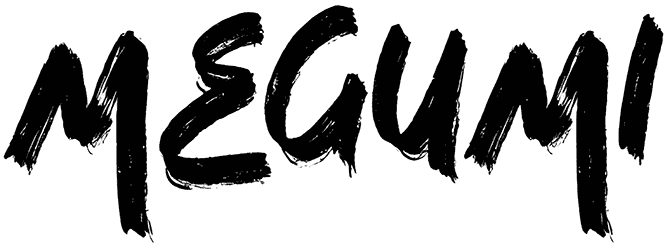
Megumi Font
Let everyone admire your art as soon as they lay eyes on it by applying Megumi to your text. Thanks to this brush font, you can make your words feel more inspired than ever. It’s the handwritten letters and their artistic touch that count.
Megumi is perfectly suited for your photography projects or designing creative posters for art classes. And since this modern font is mostly used in titles and logos, you’re going to be fine even without the lowercase.